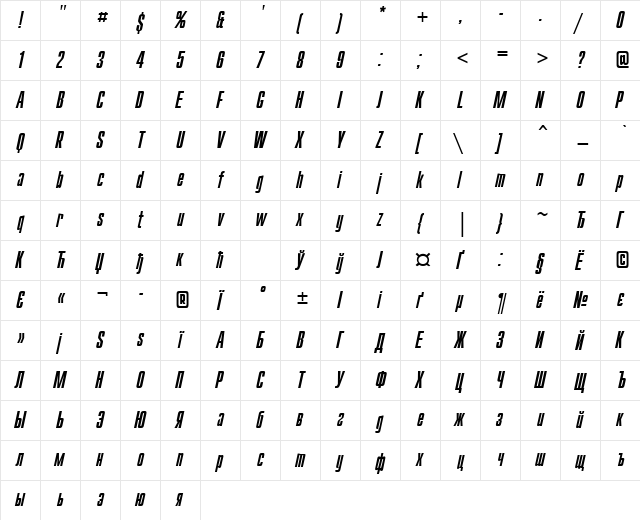
CompactCTT Italic
Design Context for CompactCTT Typeface
CompactCTT offers clean, dependable letterforms without strong stylistic allegiance, making it a practical choice for designers who need flexibility. The dynamic lean of this cut emphasises speed and emphasis in any layout. Its narrow stance lets it pack a punch even in space-constrained designs.
Pro Tip: Use CompactCTT for emphasis, pull quotes, and subheadings where its slanted energy can add rhythm to the layout.